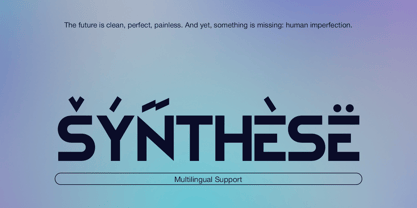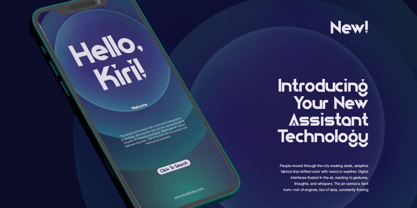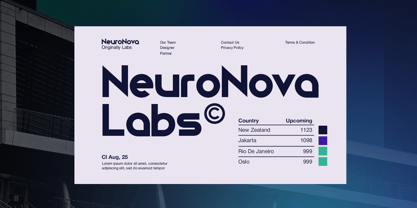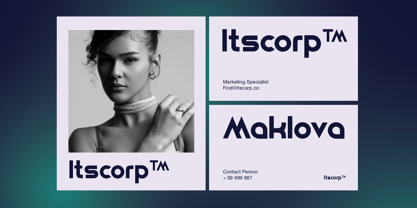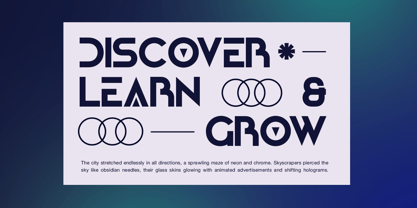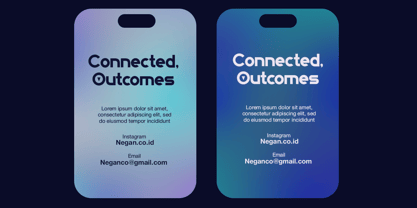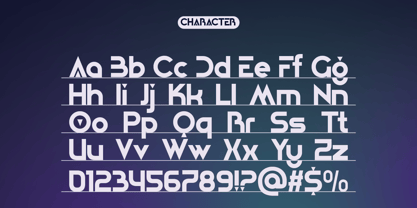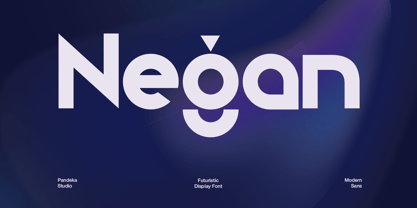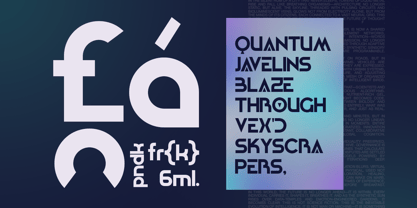
Negan
by Pandeka Studio
The Negan Font Family was designed by Sagara Nararya and published by Pandeka Studio. Negan contains 1 styles. More about this family
Negan is a futuristic sans serif logo font crafted to bring a bold and modern aesthetic into your projects. With its clean geometry, sharp edges, and unique character shapes, Negan embodies the spirit of innovation and forward-thinking design.
Perfect for logos, technology brands, apps, digital interfaces, gaming titles, and modern advertising, Negan ensures your visual identity stands out with a cutting-edge and professional look. Designed in a single Regular style, it delivers consistency while maintaining a distinctive futuristic vibe.
Elevate your branding with Negan — a futuristic font that combines bold simplicity with modern innovation.